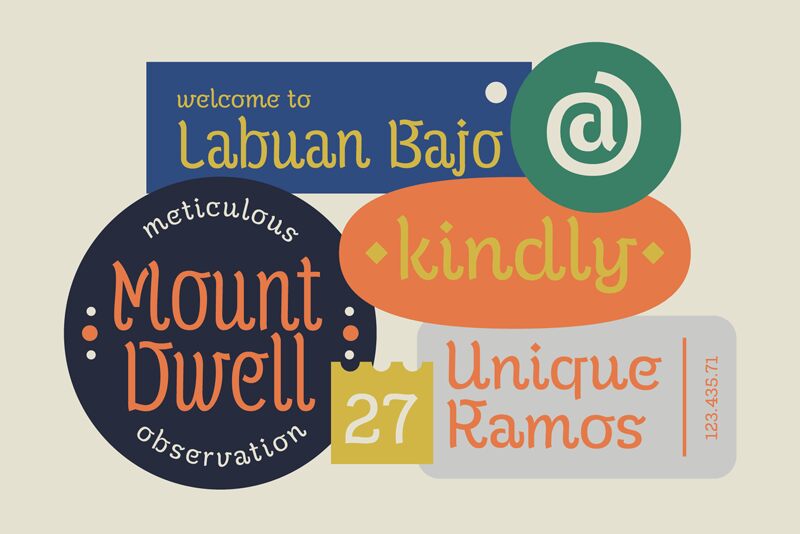
Kutai, envisioned by Eko Bimantara, is not merely a font—it's a journey through typographic artistry melded with an ethnic soul. This semi-light display typeface boasts a contemporary design that captivates the eye, making it perfect for an array of creative endeavors. The Kutai family presents itself in three distinct styles: Normal, Tall, and Taller. Each style offers a variation in x-height, allowing for nuanced visual play across text layouts.
With Kutai’s ethnic undertones and modern flair, it becomes an invaluable asset for projects aiming to leave a lasting impression. Whether it's the unique branding of a boutique, the striking title of an editorial piece, or the artisanal charm on packaging—Kutai delivers with elegance and character. Its adaptability makes it particularly well-suited for industries where design sets the tone—be it fashion labels seeking sophistication or food and beverage brands craving an exotic touch.
Embrace Kutai to infuse your designs with its one-of-a-kind typographic beauty and witness how this font transforms your creative concepts into tangible wonders.